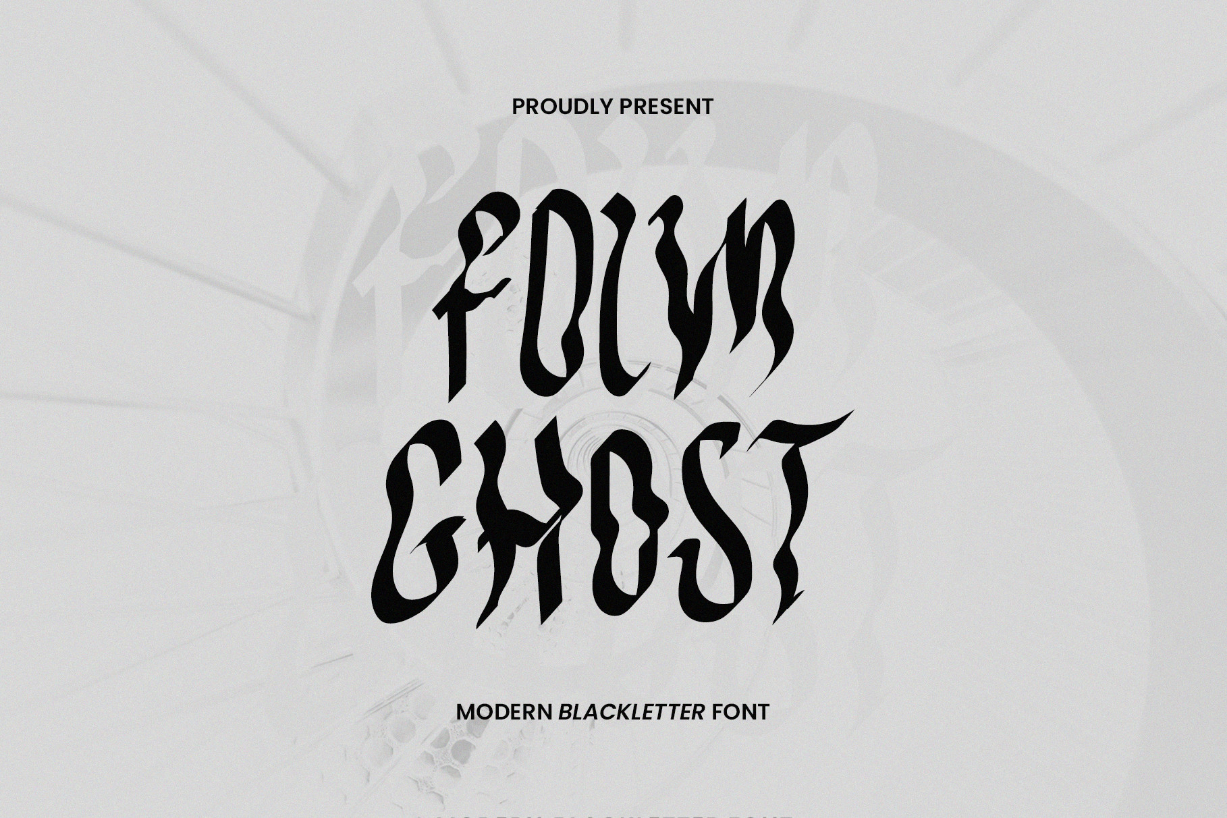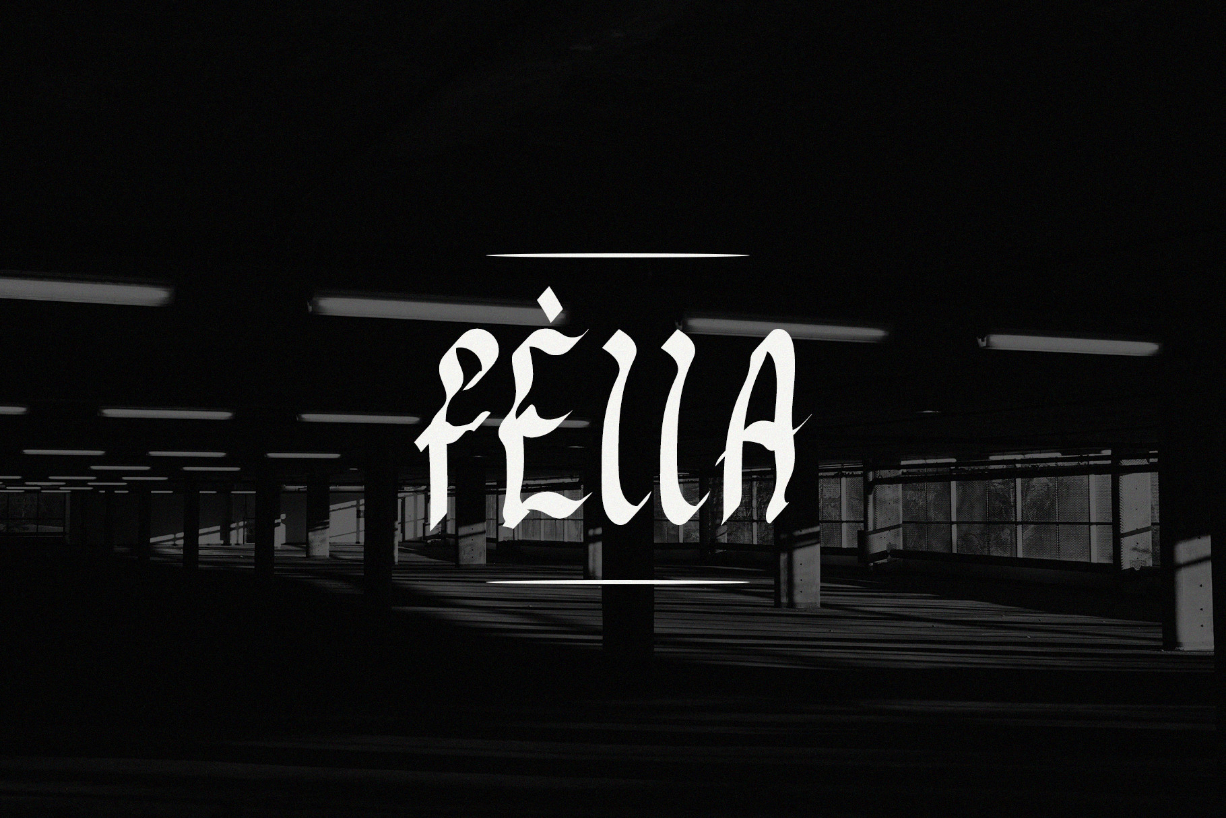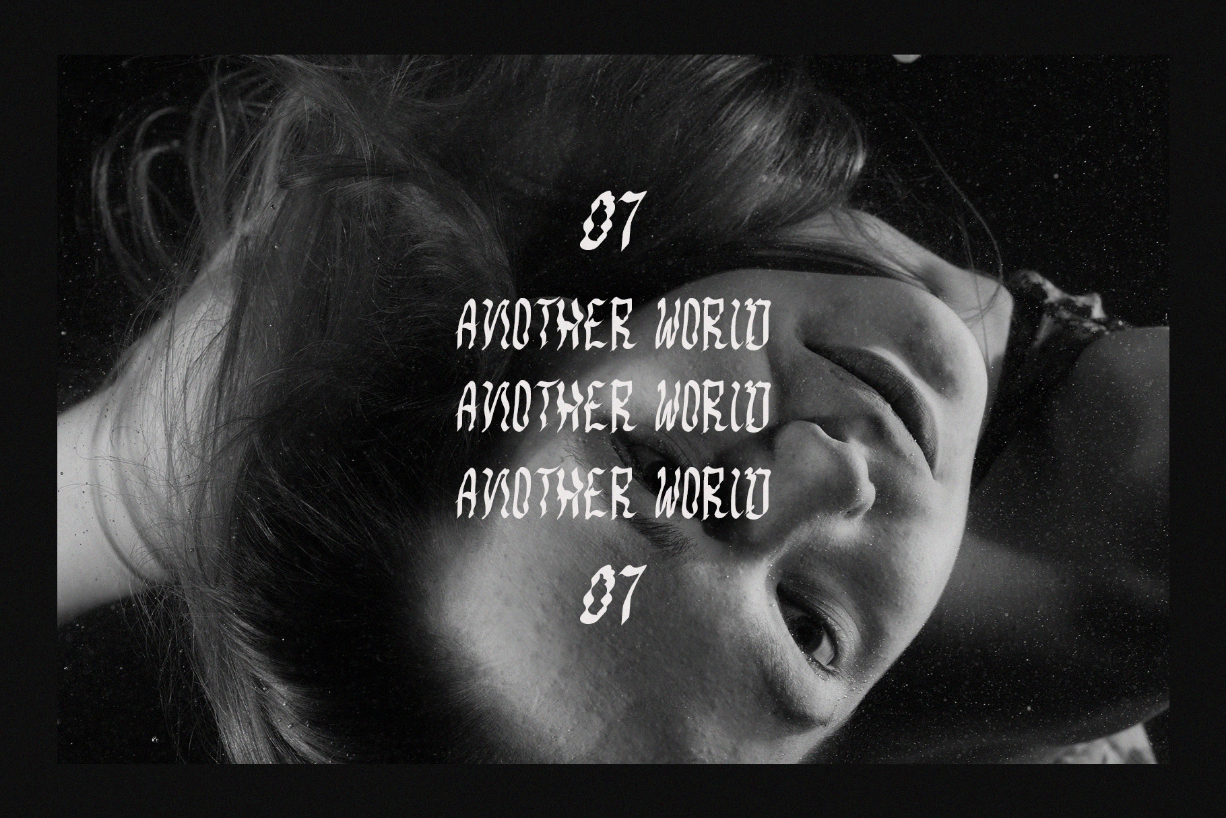
About Folm Ghost Font
Folm Ghost is a modern blackletter font perfect for branding, music, product packaging, invitations, quotes, T-shirts, labels, posters, logos, or any design you want to develop. Add it to your creative projects, and it will make your work more attractive and outstanding!